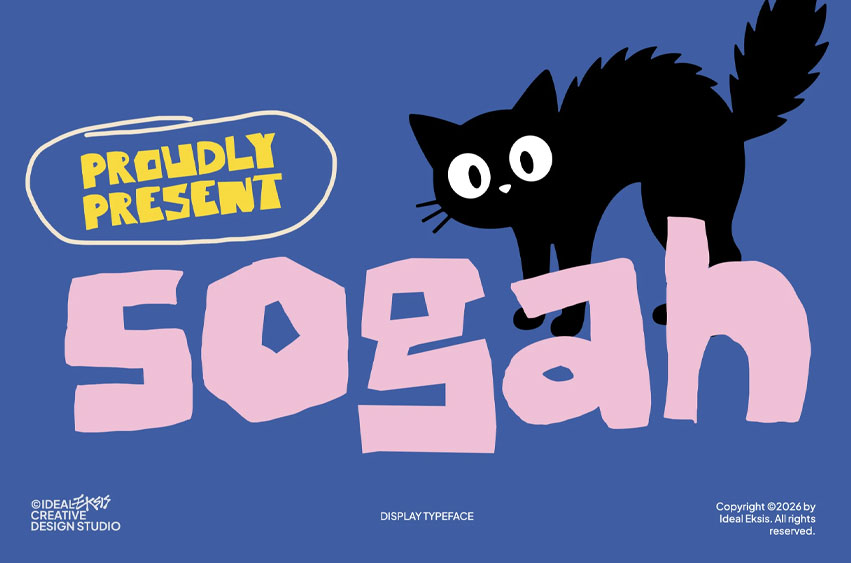
Sogah Font is a bold, chunky display typeface with a playful, hand-cut paper aesthetic. It features irregular, blocky letterforms with sharp, geometric angles combined with organic, uneven edges. The stroke weight is extremely heavy, giving it a high-impact, friendly, and whimsical presence.
The counters are small and geometric, emphasizing the solid, block-like structure of each glyph. This font is perfect for children’s books, quirky branding, poster designs, packaging, and creative editorial layouts where a fun, hand-made, and energetic vibe is desired.